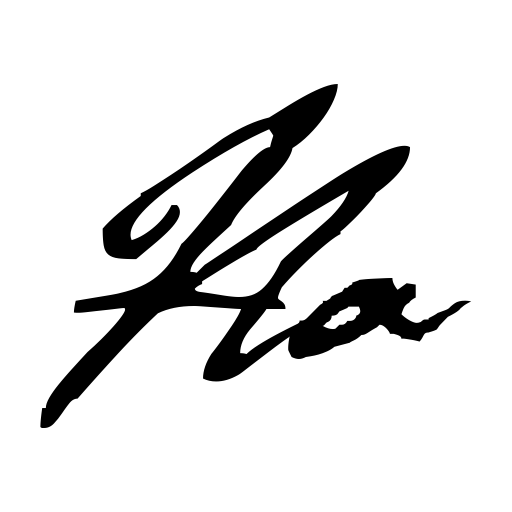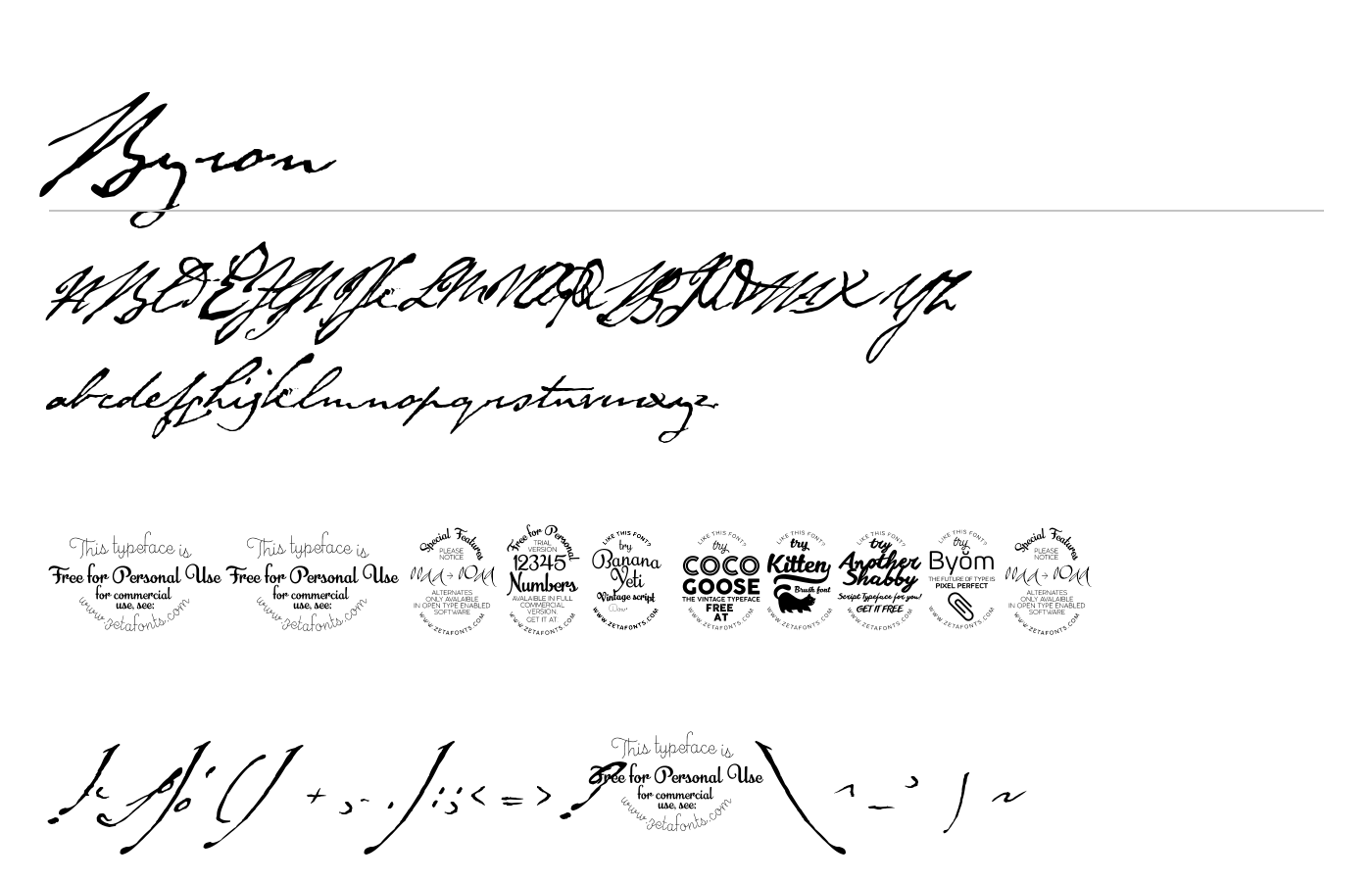
Byron is an elegant script font that mimics natural, flowing handwriting with a delicate, calligraphic style. Its graceful, loosely connected letterforms give it a personal and artistic feel, making it ideal for invitations, logos, and branding that seek a vintage or sophisticated touch. This font works best where a handcrafted, intimate look is desired, adding charm to creative and expressive designs.
Byron Font
About Byron Font
| Designer | Cosimo Lorenzo Pancini after Lord Byron |